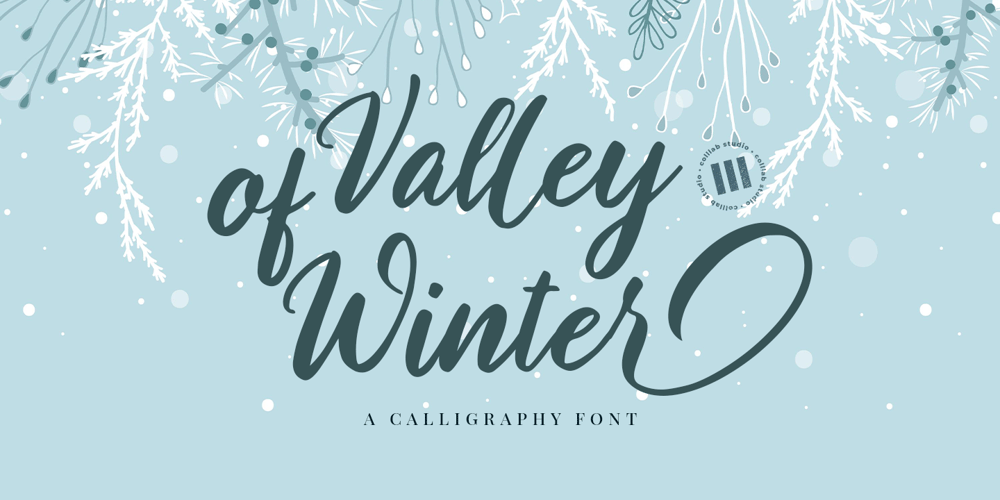
Valley of Winter
Valley of Winter font
Valley of Winter Font Family was designed by Awaluddin Syarif and published by Colllab Studio. Valley of Winter contains 1 styles and family package options. Presenting Valley of Winter! A Calligraphy Font. This font made with the perfect combination of each character. You can combine with Extra to get a unique combination. It looks original and can be used for all your project needs. Each glyph has its own uniqueness and when meeting with others will provide dynamic and pleasing proximity. This font can be used at any time and in any project. You can see in the presentation picture above, Valley of Winter looks versatile on design projects.So, Valley of Winter can’t wait to give its touch to all your design projects such as quotes, poster design, personal branding, promotional materials, website, logotype, product packaging, etc.Besides that, Valley of Winter also has some ligature that gives a surprise when you type certain characters combining. The ligatures are tt, ll, rr, ss, ee, and cc.WHAT’S INCLUDED?1. Valley of Winter • It comes with uppercase, lowercase, ligatures, numeral, punctuation, symbols, and Standard Latin Multilingual Support (Afrikaans, Albanian, Catalan, Danish, Dutch, English, French, German, Icelandic, Indonesian, Italian, Malay, Norwegian, Portuguese, Spanisch, Swedish, Zulu, and More). Also included some alternates for ending glyphs; a, e, d, g, h, i, j, k, l, m, n, q, r, t, and u.2. Extra Swash • You can feature all with typing c_1 until c_4A Million ThanksColllab Studio